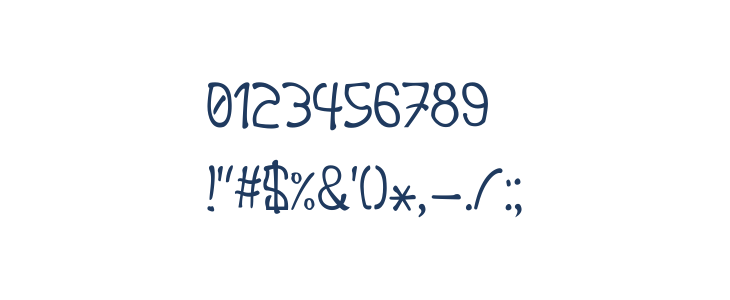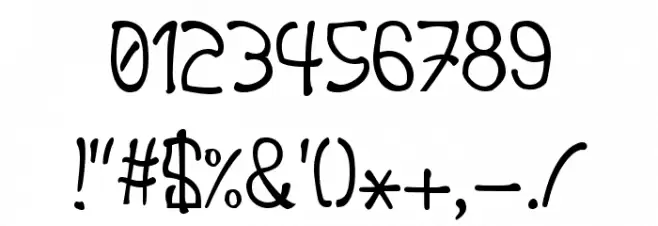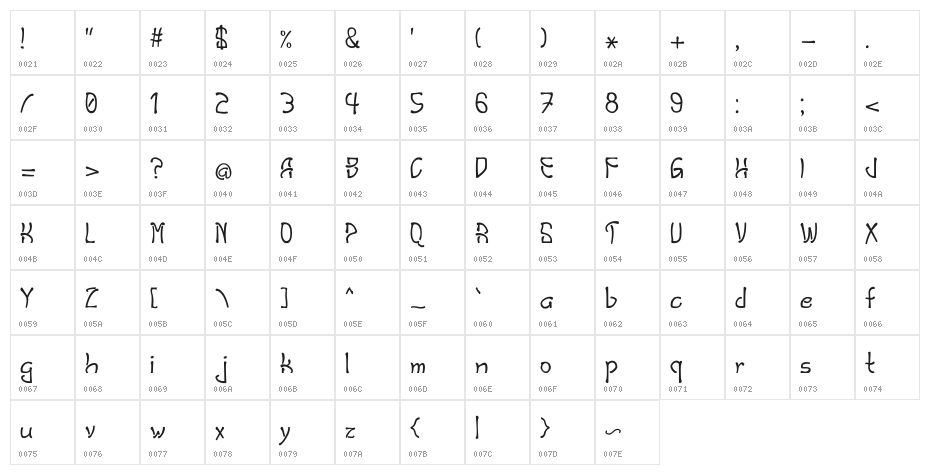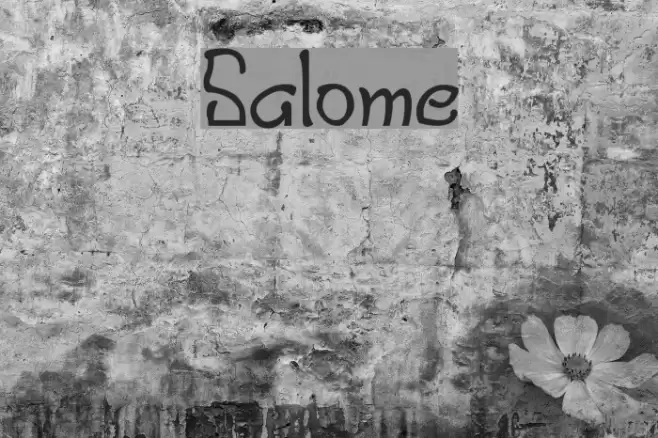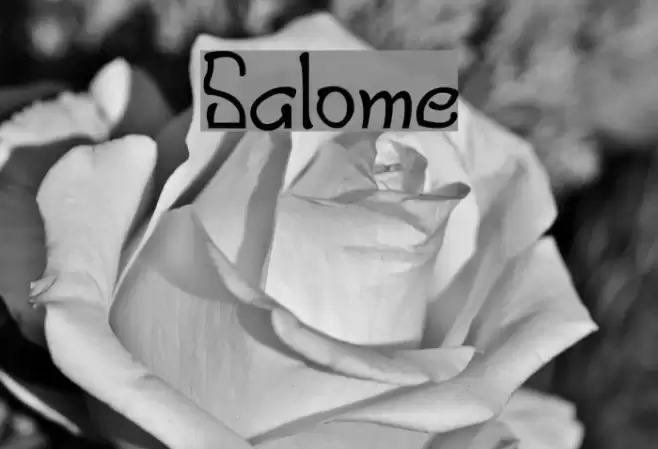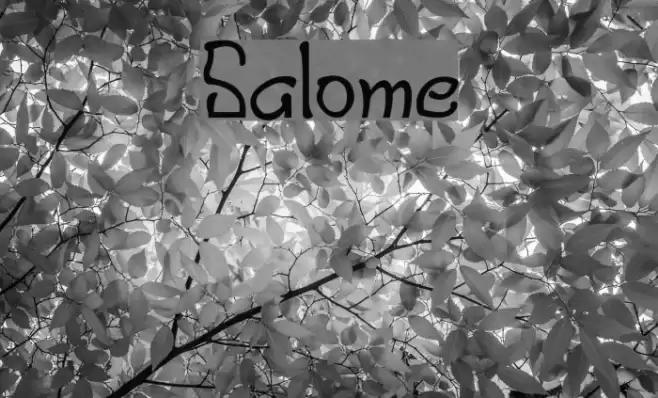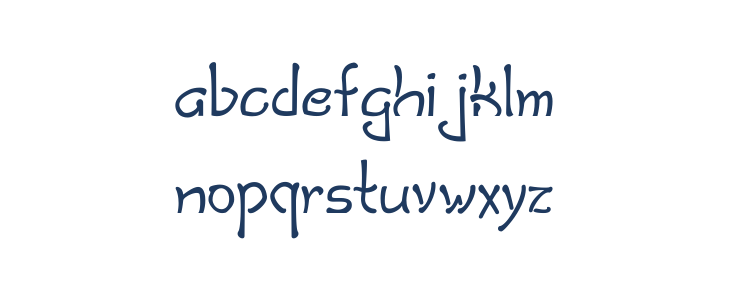
Salome Font
Salome Description
This font features a unique and artistic style with a playful twist. The characters are designed with a hand-drawn aesthetic, giving them a whimsical and creative appearance. The uppercase letters are bold and slightly irregular, adding to the font's charm. The lowercase letters maintain a consistent flow, complementing the uppercase with their smooth curves and distinctive shapes. Numbers are crafted with the same artistic flair, ensuring a cohesive look across all characters. Special characters are included, each designed to match the font's overall playful and artistic theme.
SALOME UPPERCASE
SALOME LOWERCASE
SALOME OTHER CHARS
| Overall Style | Artistic and Playful |
| Use Case | Logos, Posters, Invitations |
| Proposed Projects | Ideal for creative projects such as children's books, playful branding, artistic posters, and unique invitations. |